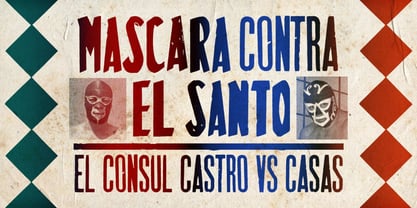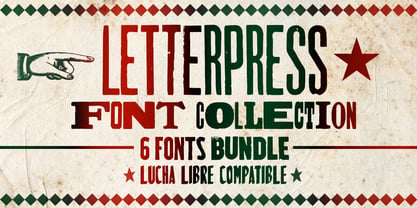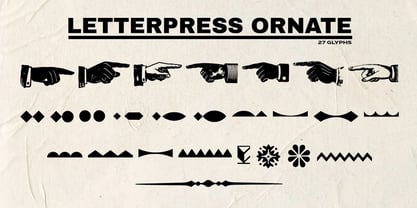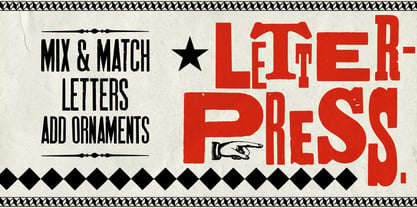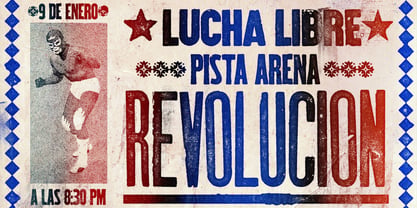
Letterpress Collection
by Misprinted Type
The Letterpress Collection Font Family was designed by Eduardo Recife and published by Misprinted Type. Letterpress Collection contains 6 styles and family package options. More about this family
Our Letterpress Font Collection features six fonts that bring the character and authenticity of traditional letterpress into your digital projects. Each font has an organic quality, capturing the subtle imperfections that make letterpress so distinctive. They’re ideal for posters, prints, and any work where you want that tactile, hand-printed feel.
Included in the collection is "Letterpress Lucha," known for its bold presence in Lucha Libre posters, and "Letterpress Medley," a font that blends various letterpress characters, giving it that charmingly mixed look.